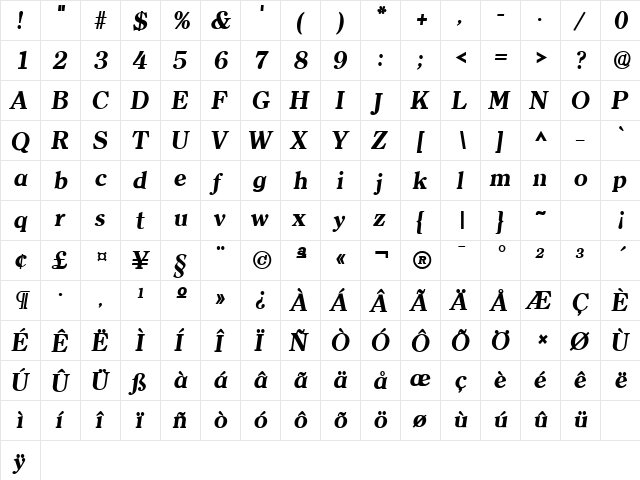
Clarity Serif Heavy SF Bold Italic Font Preview
Design Context for Clarity Serif Heavy SF Typeface
Clarity Serif Heavy SF brings classic typographic sensibility to the table — its serifs and measured letterforms reflect centuries of print heritage. Its italic angle brings a sense of urgency and motion to the letterforms. Its bold stroke weight gives it real presence on the page.
Pro Tip: Use Clarity Serif Heavy SF for editorial body copy and considered headline work. Pair with a neutral sans for UI elements or captions to create a classic hierarchy.